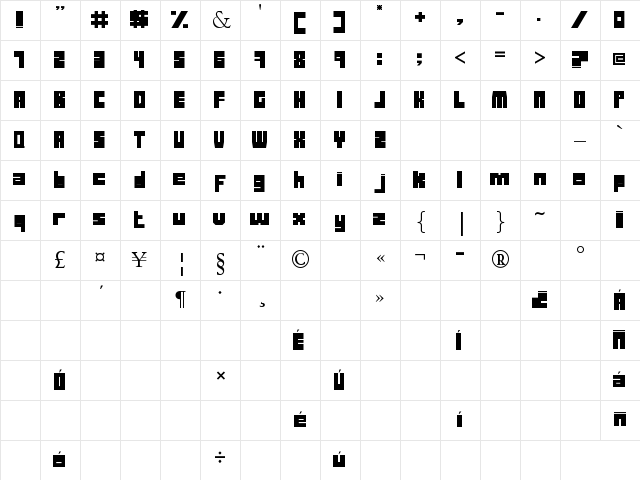
Duck-esa Regular
Design Context for Duck-esa
Duck-esa is a composed and adaptable typeface that performs quietly and consistently across a wide range of design contexts.